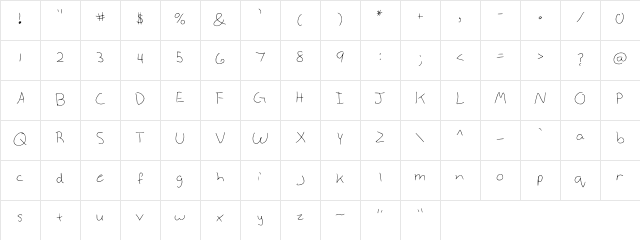
Anneke is a composed and adaptable typeface that performs quietly and consistently across a wide range of design contexts. Its slender proportions lend an understated elegance to any composition.
Pro Tip: Use Anneke in both headline and body roles to test its range before committing to a single application.